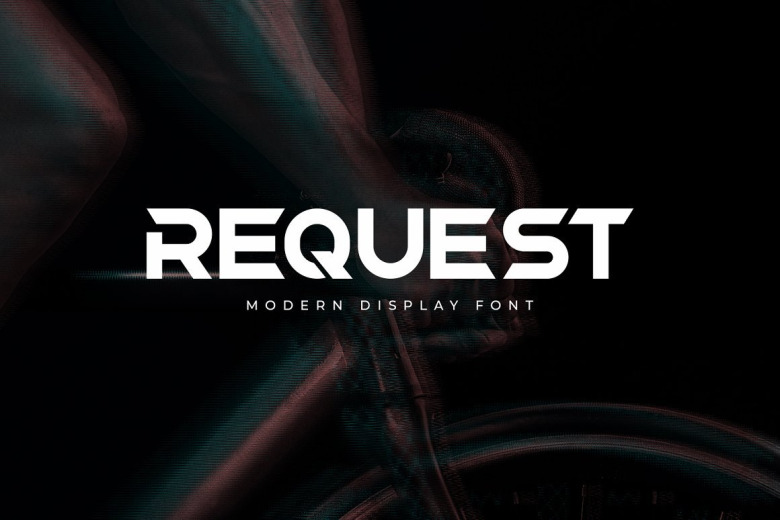
Request Font
This is a simple and sharp looking display font, that will truly inspire your works.Made from font designer named Din Studio. It celebrates abstract shapes in all their eclectic beauty. This font will look truly outstanding in a wide range of contexts.